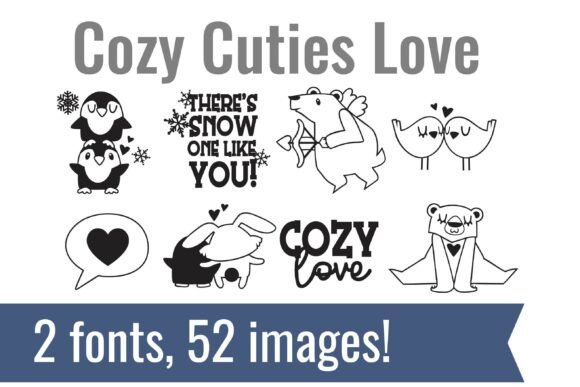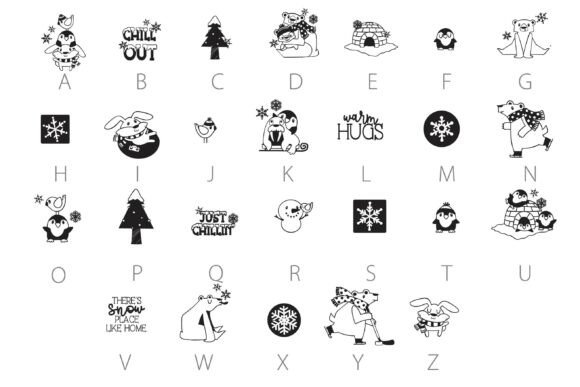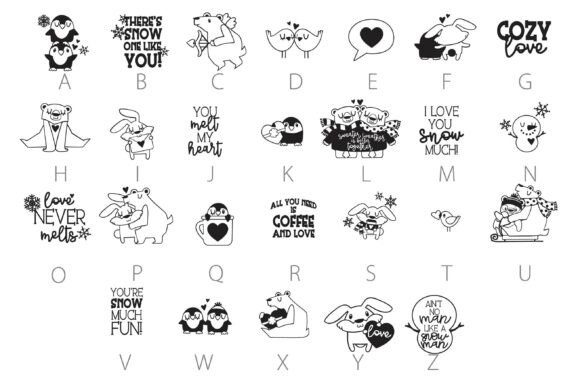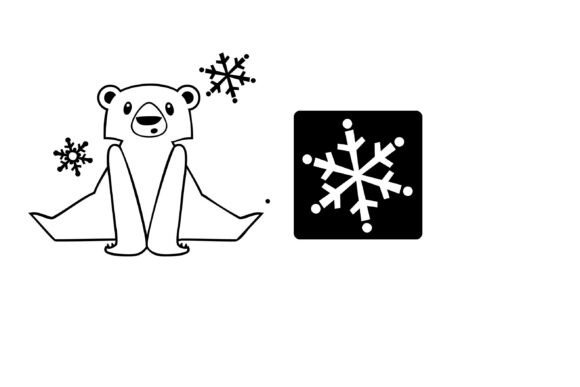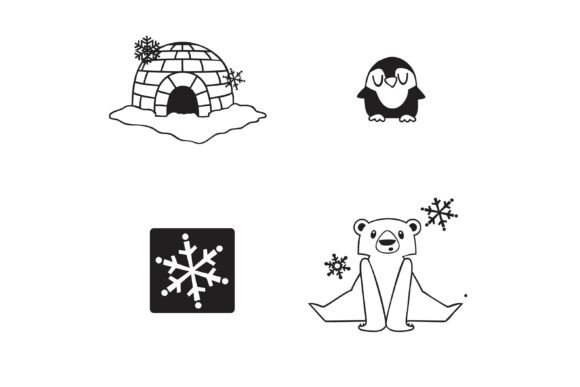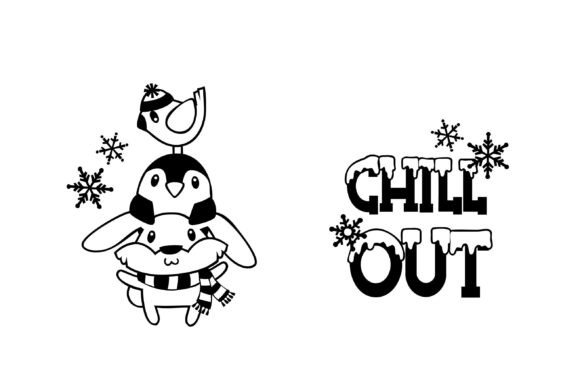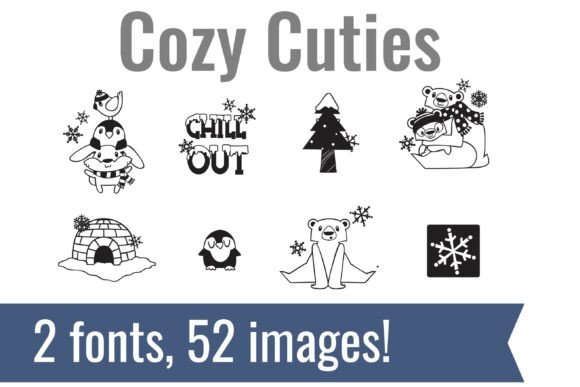
Unlock Endless Creativity with Cozy Cuties Font: The Ultimate Dingbat Font Bundle for Designers and Crafters
Are you tired of spending hours searching for the perfect icons and graphics for your designs? Look no further! Introducing Cozy Cuties Font, a bundle of two perfectly coordinated dingbat fonts featuring the cutest winter animals chilling out in winter and getting ready for Valentine’s Day. With these fonts, you’ll have access to dozens of cohesive, scalable designs at your fingertips, saving you time and effort in your creative projects.
For those who may be new to dingbat fonts, let’s start with the basics. A dingbat font is a type of font that features graphical symbols, icons, or images instead of traditional letters. These fonts are designed to provide a quick and easy way to add visual interest to your designs, without the need for tedious searching or expensive clip art purchases.
The Cozy Cuties Font bundle includes two dingbat fonts, carefully crafted to work beautifully together. The fonts feature a range of winter animals, from snowmen and penguins to rabbits and deer, all enjoying the winter season and preparing for Valentine’s Day. With these fonts, you’ll have access to a vast library of graphics, including:
• Seasonal icons for holiday cards and invitations
• Intricate frames for planners, journals, and paper crafts
• Cute graphics for vinyl cutting and printing
• Scalable designs for use in a variety of creative projects
• A complete set of high-quality graphics, all designed to work beautifully together
The Cozy Cuties Font bundle is perfect for designers and crafters who want to add a touch of personality to their creations. With these fonts, you’ll be able to:
• Create stunning designs for holiday cards, invitations, and paper crafts
• Add visual interest to your planners, journals, and other creative projects
• Save time and effort by having access to a vast library of graphics